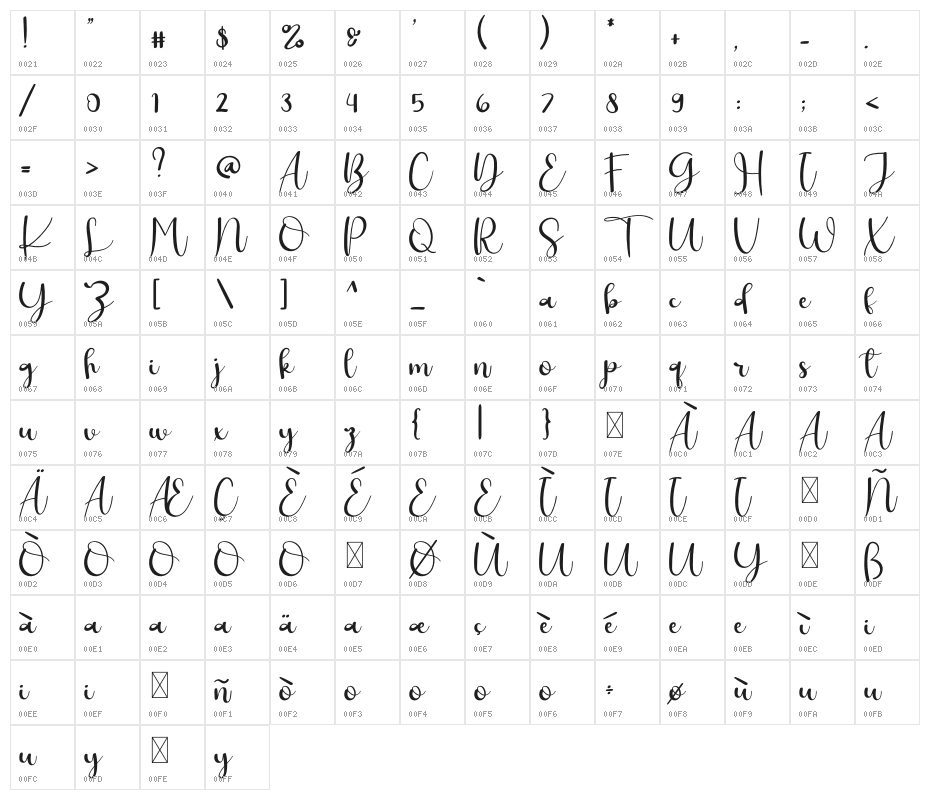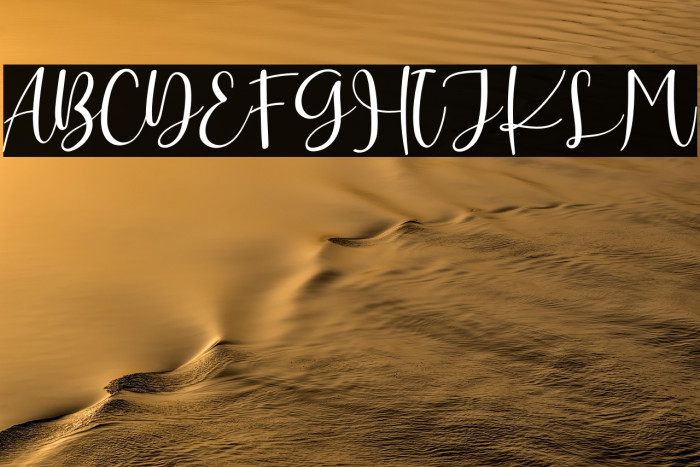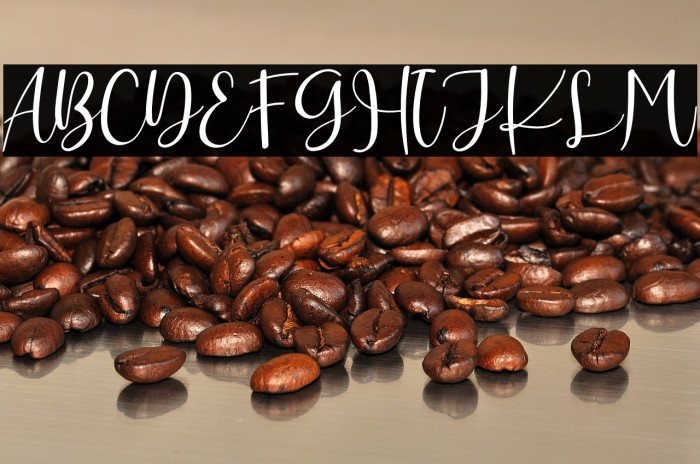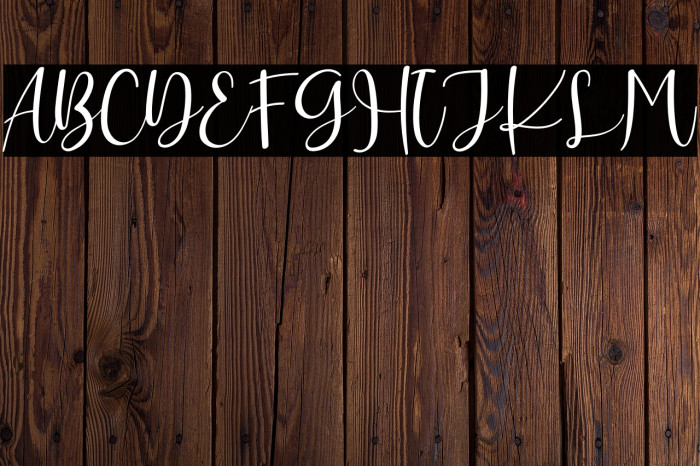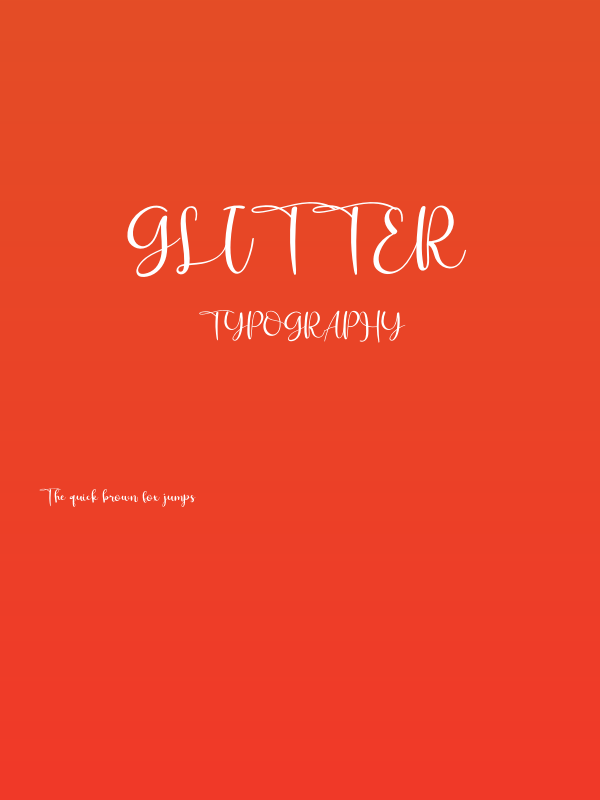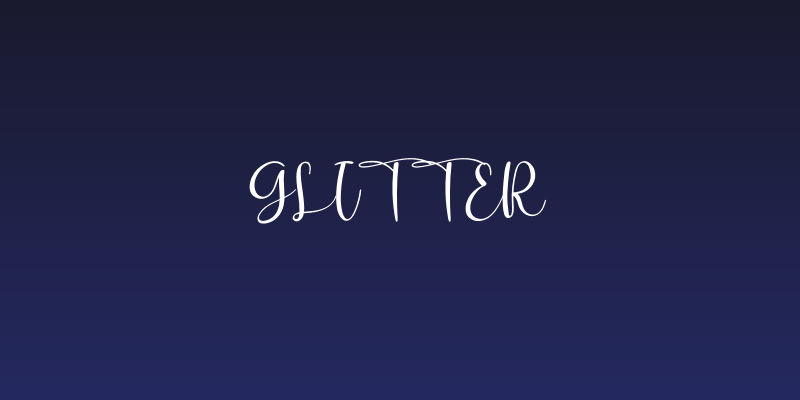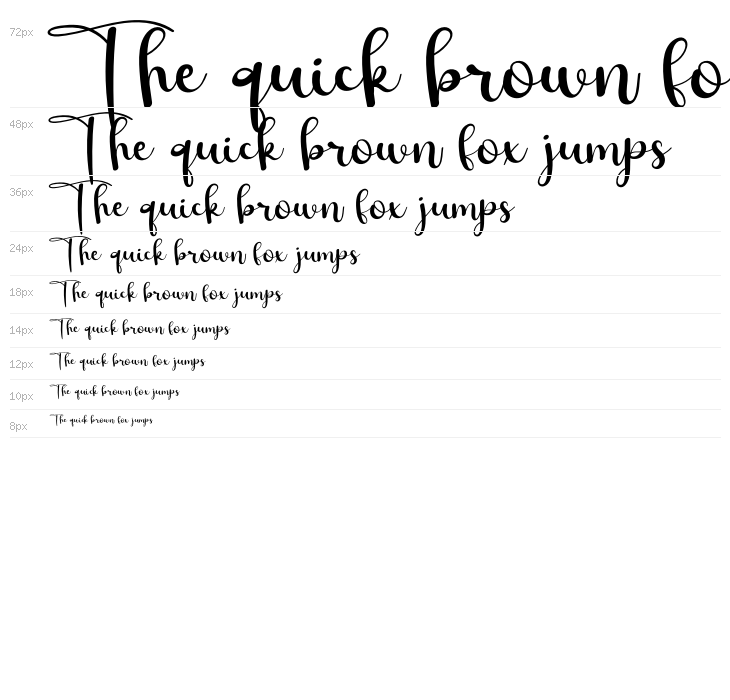
Glitter Font
Glitter Description
This font features a playful and elegant script style with a handwritten appearance. The uppercase letters are characterized by smooth, flowing lines and a slight slant, giving them a dynamic and lively feel. The lowercase letters maintain a consistent style with rounded forms and connected strokes, enhancing the cursive look. The numerals are bold and slightly rounded, maintaining the overall aesthetic. Special characters are creatively designed, adding a whimsical touch to the font. The overall design is cohesive, making it suitable for projects that require a personal and artistic touch.
| Proposed Projects | Ideal for wedding invitations, greeting cards, branding, and social media graphics. |